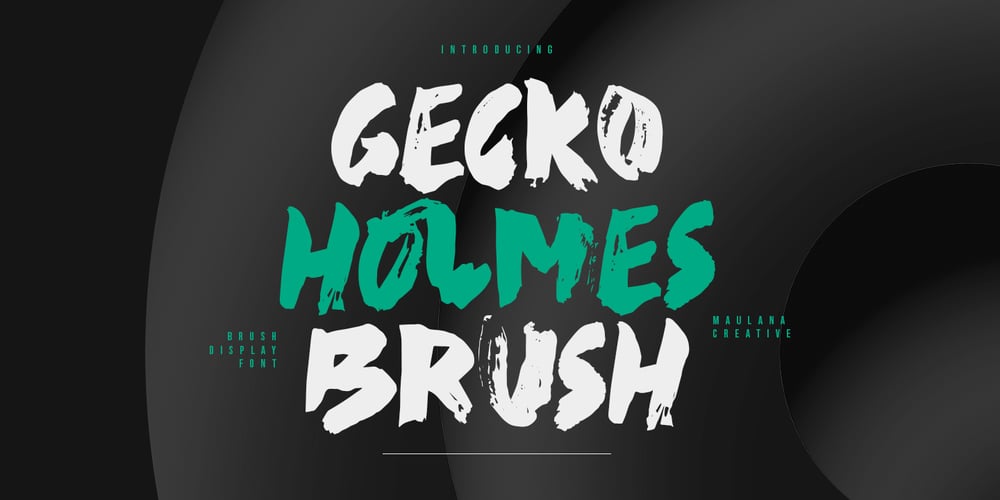
MC Gecko Holmes Font Family was designed by Gilang Maulana and published by Maulana Creative. MC Gecko Holmes contains 1 styles and family package options. Gecko Holmes brush font. With three weight stroke, fun character with a bit of ligatures. To give you an extra creative work. Gecko Holmes brush font support multilingual more than 100+ language. This font is good for logo design, Social media, Movie Titles, Books Titles, a short text even a long text letter and good for your secondary text font with sans or serif. Make a stunning work with Gecko Holmes brush font. Cheers, Maulana Creative